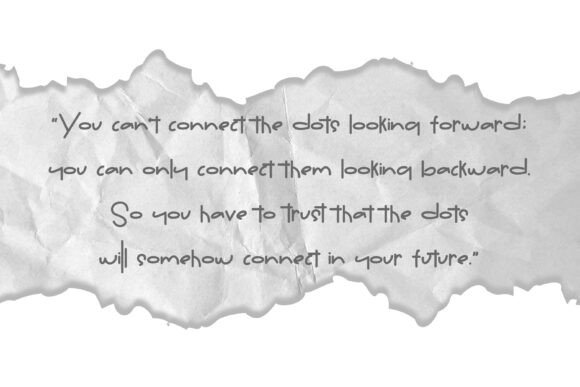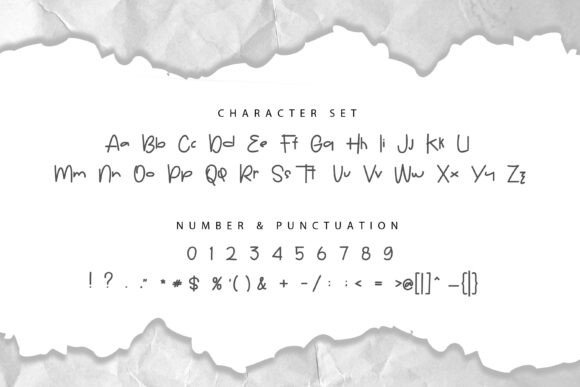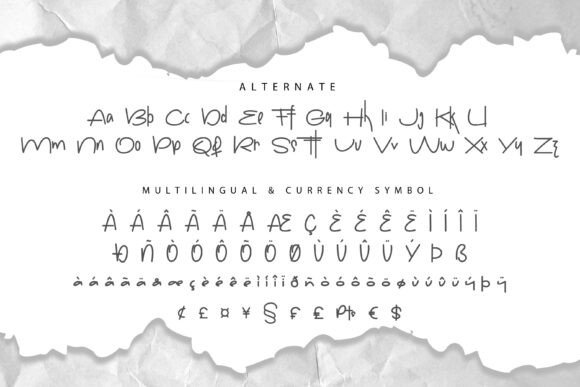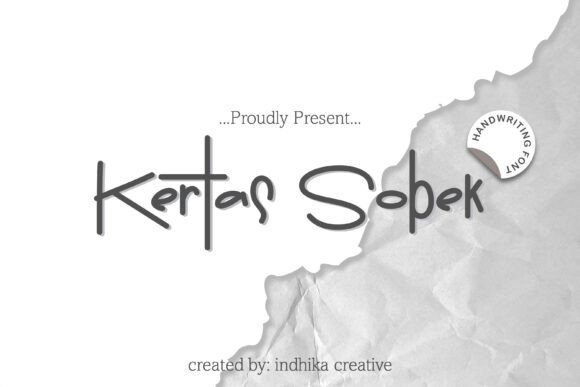
Introduction to Kertas Sobek Font
Kertas Sobek is a handwriting font that has a distinctive character with a creative and expressive touch.
Inspired by the texture of torn paper, this font reflects a relaxed, personal, and slightly experimental style With free-flowing lines and unique letterforms, Kertas Sobek is perfect for various design projects that want to appear casual, artistic, and authentic.